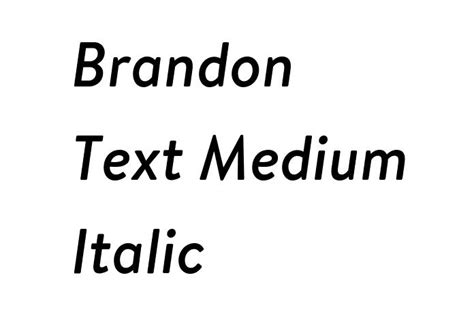
Brandon Text Medium Font: A Comprehensive Guide
Hey guys, ever stumbled upon a font that just clicks ? That’s Brandon Text Medium for you! Seriously, this font is a rockstar in the design world, and today, we’re diving deep into why it’s such a go-to for so many creatives. We’ll chat about its origins, its killer features, and where you can totally flex its versatility. So, buckle up, because we’re about to explore the awesome universe of the Brandon Text Medium font!
The Genesis of Brandon Text Medium
Before we start gushing about how amazing Brandon Text Medium is, let’s give a little nod to its roots. This bad boy was designed by Hannes von Döhren and is part of the larger Brandon Grotesque family. Now, the Grotesque series itself is inspired by classic geometric sans-serif typefaces from the 1920s and 30s, but with a modern, friendly twist. Think of it like taking a vintage car, giving it a fresh coat of paint, and souping up the engine – it’s got that timeless appeal but is totally built for today’s world. The Brandon Text Medium specifically hits that sweet spot, offering a balanced weight that’s neither too heavy nor too light, making it incredibly readable and versatile. It’s not just a font; it’s a carefully crafted piece of art that balances tradition with innovation. When you’re looking for a font that speaks volumes without shouting, Brandon Text Medium is definitely one to consider. Its clean lines and approachable character make it suitable for a vast array of projects, from branding and editorial design to web and UI design. The designers really nailed the sweet spot between neutrality and personality, ensuring it stands out without being distracting. This thoughtful design process is what elevates Brandon Text Medium from just another typeface to a truly premium choice for discerning designers. It’s the kind of font that makes your text look effortlessly polished and professional, even if you’re just whipping up a quick social media graphic. The attention to detail in each glyph is apparent, contributing to its overall harmonious and legible appearance. It’s a testament to the power of good typography and how the right font can significantly impact the perception of your message.
What Makes Brandon Text Medium So Special?
Alright, let’s get down to the nitty-gritty. What’s the secret sauce behind Brandon Text Medium’s widespread love? First off, readability is king . This font is designed with legibility in mind, meaning your readers won’t be squinting to figure out what you’re saying. The letterforms are clear, the spacing is well-balanced, and it just works across different sizes and mediums. Whether it’s on a tiny phone screen or a massive billboard, Brandon Text Medium holds its own. Secondly, it’s got this perfectly neutral yet warm personality . It’s not sterile like some geometric sans-serifs can be. There’s a subtle friendliness, a touch of humanity, that makes it approachable. This balance is crucial for branding – you want to be professional but also relatable, right? Brandon Text Medium nails this. It’s a typeface that feels both modern and classic, a tricky balance to achieve, but somehow, it does it with such grace. The geometric underpinnings give it a clean, structured feel, while the slightly rounded terminals and open counters add a touch of warmth and character. This makes it incredibly versatile, suitable for everything from sophisticated corporate identities to more casual, friendly communications. The x-height is generous , which is a huge win for legibility, especially at smaller sizes. This means lowercase letters are tall enough to be easily distinguished from uppercase letters, and characters like ‘i’, ‘l’, and ’t’ are clear and sharp. This detail might seem small, but it makes a massive difference in how easily and comfortably people can read your text. The letterforms are also subtly distinct , avoiding the monotony that can plague some sans-serif fonts. Each character has its own unique charm while still fitting perfectly within the overall harmony of the typeface. This thoughtful design ensures that even large blocks of text remain engaging and easy to digest. Furthermore, the variety of weights available within the Brandon Grotesque family (which Brandon Text Medium is a part of) allows for a comprehensive typographic system. While Medium is the star of our show today, having access to Light, Regular, Bold, Black, and more means you can create complex and visually appealing designs using a single, cohesive typeface family. This consistency is invaluable for maintaining brand integrity and creating a professional look. So, yeah, it’s a combo of super-legible design, a friendly vibe, and smart typographic details that make Brandon Text Medium a designer’s best friend. It’s the kind of font that doesn’t demand attention but earns it through sheer competence and charm. It’s dependable, stylish, and always gets the job done, making it a truly standout choice in the crowded world of typography.
Where Can You Use Brandon Text Medium?
Honestly, guys, the sky’s the limit with Brandon Text Medium! Its versatility is its superpower. Let’s break down some prime spots where this font shines:
Branding and Logos
This is where Brandon Text Medium truly excels . For branding projects , it’s a no-brainer. Need a logo that feels modern, clean, and trustworthy? Boom. Use Brandon Text Medium. It works beautifully for headlines, taglines, and even body copy within your brand’s visual identity. Its balanced weight ensures it stands out without being overpowering, making your brand memorable and professional. Think about tech startups, boutique agencies, or even established corporations looking for a fresh, contemporary feel – Brandon Text Medium can adapt. It lends an air of sophistication and approachability simultaneously, which is a killer combo for brand perception. Many successful brands have adopted this font precisely because it communicates trust and modern sensibility without resorting to overly trendy or fleeting design choices. It’s a safe yet stylish bet that pays off in the long run. The ability to pair it with other fonts, or use different weights from the Brandon family, also gives designers a lot of creative freedom when developing a comprehensive brand system. It’s the kind of font that makes a statement of quiet confidence, which is often exactly what a strong brand needs. When you see it on packaging, websites, or marketing materials, it immediately conveys a sense of quality and thoughtful design. It’s not just about looking good; it’s about communicating the right message effectively and elegantly. It’s the visual equivalent of a firm handshake and a warm smile – professional, reliable, and welcoming.
Web and UI Design
In the realm of web and UI design , readability is absolutely critical. Brandon Text Medium delivers. Its clear letterforms and generous x-height make it a dream for website copy, app interfaces, and navigation menus. Users can easily scan content and interact with your site or app without fatigue. Plus, its modern aesthetic keeps your digital presence looking sharp and up-to-date. It’s a font that enhances user experience, which, let’s be real, is super important for keeping people engaged. The way it renders on screens, both desktop and mobile, is consistently excellent, minimizing issues with pixelation or awkward spacing. This reliability is a huge factor for designers who need their work to look flawless across various devices and browsers. Many successful apps and websites use Brandon Text Medium for their primary interface text because it strikes that perfect balance between being functional and aesthetically pleasing. It doesn’t get in the way of the content; instead, it supports it, making information accessible and digestible. The clean lines ensure that even complex data or dense paragraphs are easy to navigate visually. It’s a font that understands its role: to serve the content and the user, making digital interactions smoother and more enjoyable. Its presence on a screen feels clean, organized, and professional, contributing positively to the overall user interface design and enhancing usability significantly. It’s a workhorse font that performs exceptionally well under pressure, making it a favorite for high-traffic digital platforms where clarity and speed of comprehension are paramount.
Editorial and Print
For editorial design – think magazines, books, and reports – Brandon Text Medium is a fantastic choice for body text. It offers a comfortable reading rhythm for longer articles. Headlines can also benefit from its clean, impactful presence. In print, its clarity ensures that your message is communicated effectively, whether it’s for a formal report or a more lifestyle-oriented publication. It adds a touch of sophistication without feeling stuffy. It’s the kind of font that makes a well-written article even more enjoyable to read. Imagine flipping through a magazine, and the text is just easy on the eyes – that’s the magic of a well-chosen font like Brandon Text Medium. It contributes to the overall aesthetic and tone of the publication, making it feel polished and professional. For book designers, it offers a reliable and attractive option for setting novels or non-fiction, ensuring that readers can immerse themselves in the story or information without typographic distractions. Its consistent character and legibility make it suitable for a wide range of genres and styles. Even in brochures or flyers, it can elevate the design, making the information presented feel more credible and appealing. The subtle warmth in its design prevents it from feeling cold or impersonal, which is crucial for engaging readers in print media. It’s a font that respects the content it presents, allowing the words to take center stage while still providing a visually pleasing frame. It’s a testament to the fact that good typography is fundamental to effective communication, and Brandon Text Medium certainly checks all the boxes for high-quality print applications. It handles serifs gracefully and sans-serifs with equal aplomb, showcasing its adaptability across different design contexts and contributing to a refined visual hierarchy.
Packaging and Merchandise
Need to make your product packaging pop or your merchandise look chef’s kiss ? Brandon Text Medium is your guy. It looks fantastic on labels, tags, t-shirts, and more. Its clean, modern vibe appeals to a broad audience, and its readability ensures your brand message is clear, even on small items. It adds a professional touch that can make even simple items feel more premium. Think of craft beer labels, artisanal food packaging, or even branded tote bags – this font brings a sense of quality and style. It’s versatile enough to work with minimalist designs or more elaborate artwork, often serving as a grounding element that brings clarity to the overall composition. Its legibility on various materials and finishes is also a plus, ensuring that your branding remains consistent and impactful across different product types. It conveys a sense of trustworthiness and quality, which are essential for consumer products. The font’s balanced proportions help ensure that text remains legible even when subjected to the constraints of product packaging design, such as limited space or curved surfaces. It’s a font that communicates professionalism and a keen eye for detail, attributes that are highly valued in today’s competitive market. It helps create a cohesive brand experience, from the digital realm to the physical product. The subtle elegance of Brandon Text Medium ensures that merchandise and packaging feel both contemporary and timeless, appealing to a wide demographic. It’s the kind of font that makes people feel good about their purchase, associating the product with quality and good design. It’s a subtle yet powerful tool in the branding arsenal, helping to build brand recognition and customer loyalty through consistent and appealing visual communication. It’s simply a fantastic font for making your physical products look their absolute best and resonate with your target audience. It elevates the ordinary to the extraordinary, making your brand stand out on the shelf or in the hands of a customer.
Final Thoughts: Why Brandon Text Medium Rocks
So, there you have it, folks! Brandon Text Medium isn’t just a font; it’s a reliable, stylish, and incredibly versatile tool in any designer’s kit. Its blend of geometric precision and humanistic warmth makes it perfect for almost any project, from killer branding to seamless web interfaces. It’s readable, it’s friendly, and it just looks good. If you’re ever in doubt about which font to use, give Brandon Text Medium a spin. You honestly can’t go wrong with this one. It’s the kind of font that elevates your work, making it look polished, professional, and effortlessly cool. It’s a testament to how good design, even in the smallest details like typography, can make a huge difference. It’s a font that speaks volumes through its clarity and subtle charm, making it an indispensable asset for anyone serious about visual communication. Keep experimenting, keep creating, and remember the power of a great font like Brandon Text Medium!